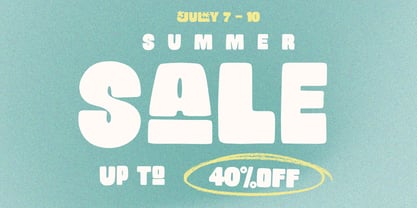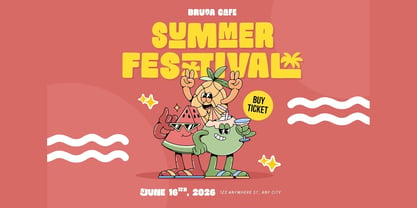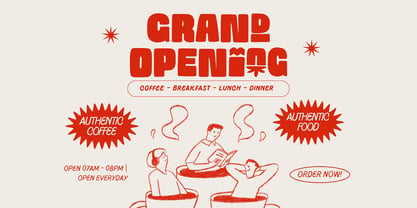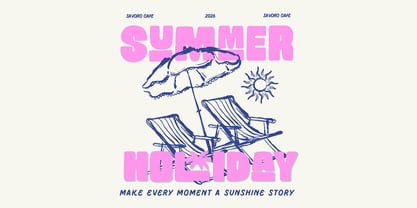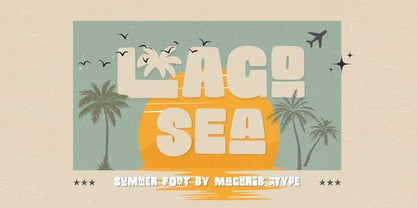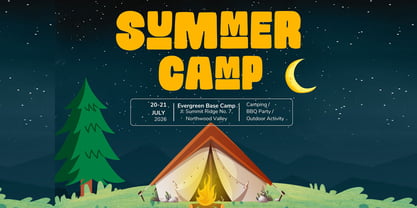
Lago Sea Sans Serif
by Maghrib Type
The Lago Sea Sans Serif Font Family was designed by Rizky Setyaludin and published by Maghrib Type. Lago Sea Sans Serif contains 1 styles. More about this family
Lago Sea Sans Serif is a summer-inspired sans serif typeface that captures warm, cheerful, and playful vibes. Inspired by beach sunsets, ocean waves, tropical holidays, and summer festivals, this font brings bold, rounded letterforms with a soft handdrawn touch that feels natural and friendly. The characters are thick yet smooth, featuring rounded corners that create a cute, approachable, and charming personality. Subtle handmade details in every curve give it a unique, lively appearance — avoiding stiffness while maintaining strong visual impact. Lago Sea perfectly balances modern sans serif structure with an illustrative warmth, making it ideal for designs that want to stand out while staying fun and welcoming.
Designers: Rizky Setyaludin
Foundry: Maghrib Type